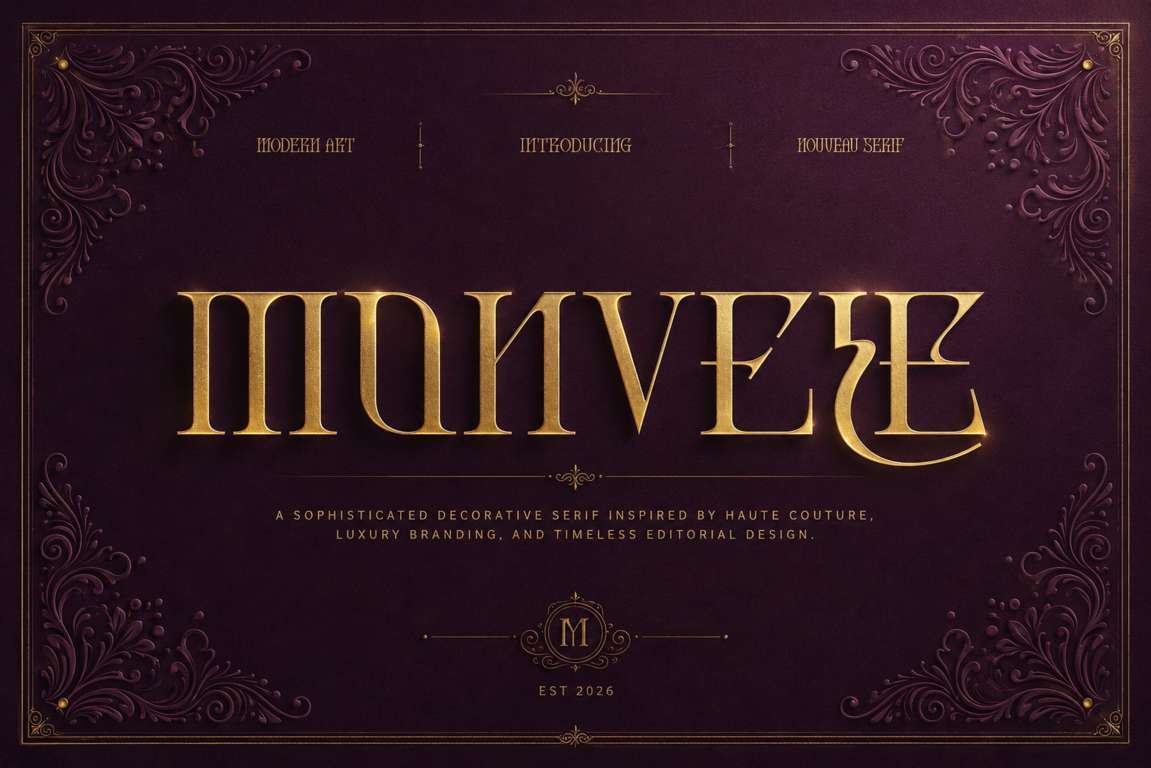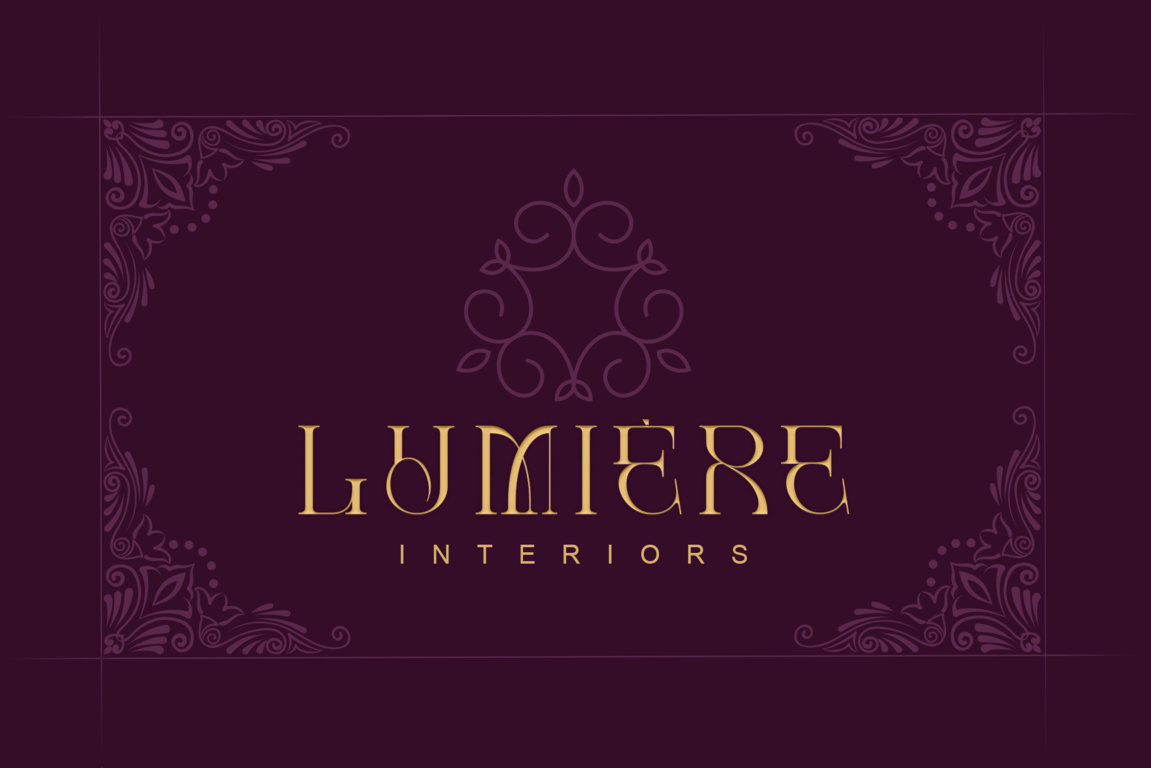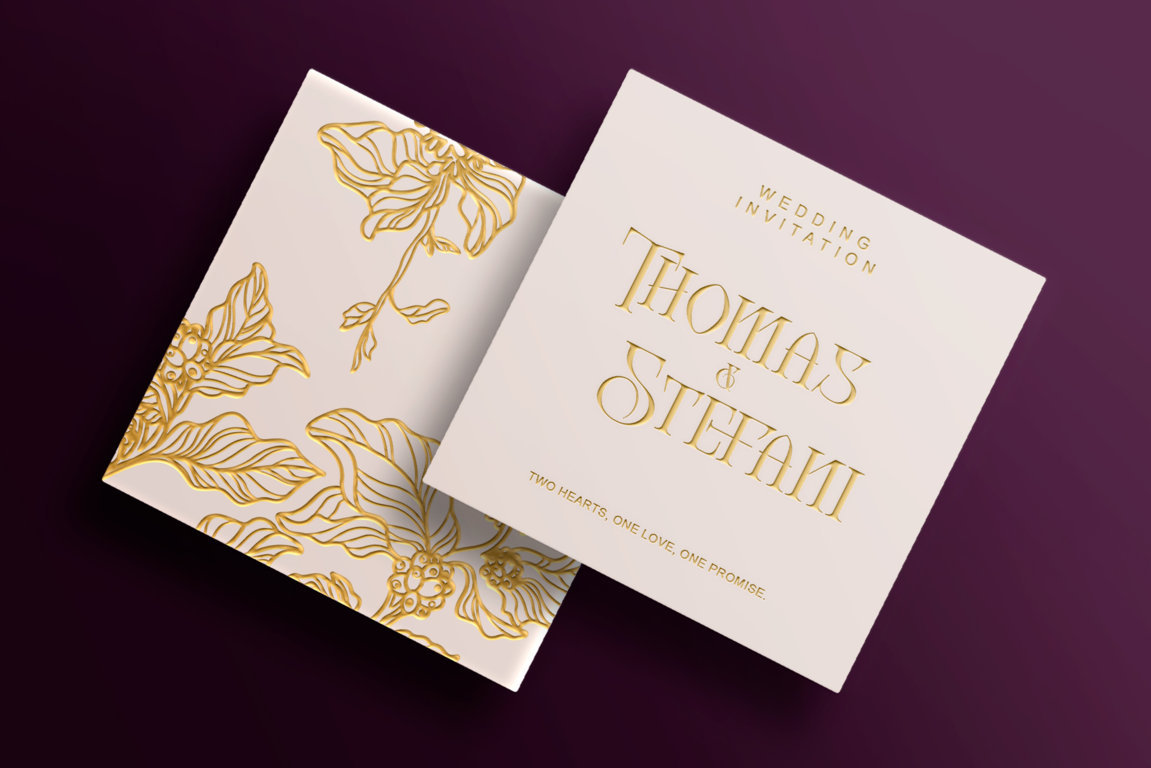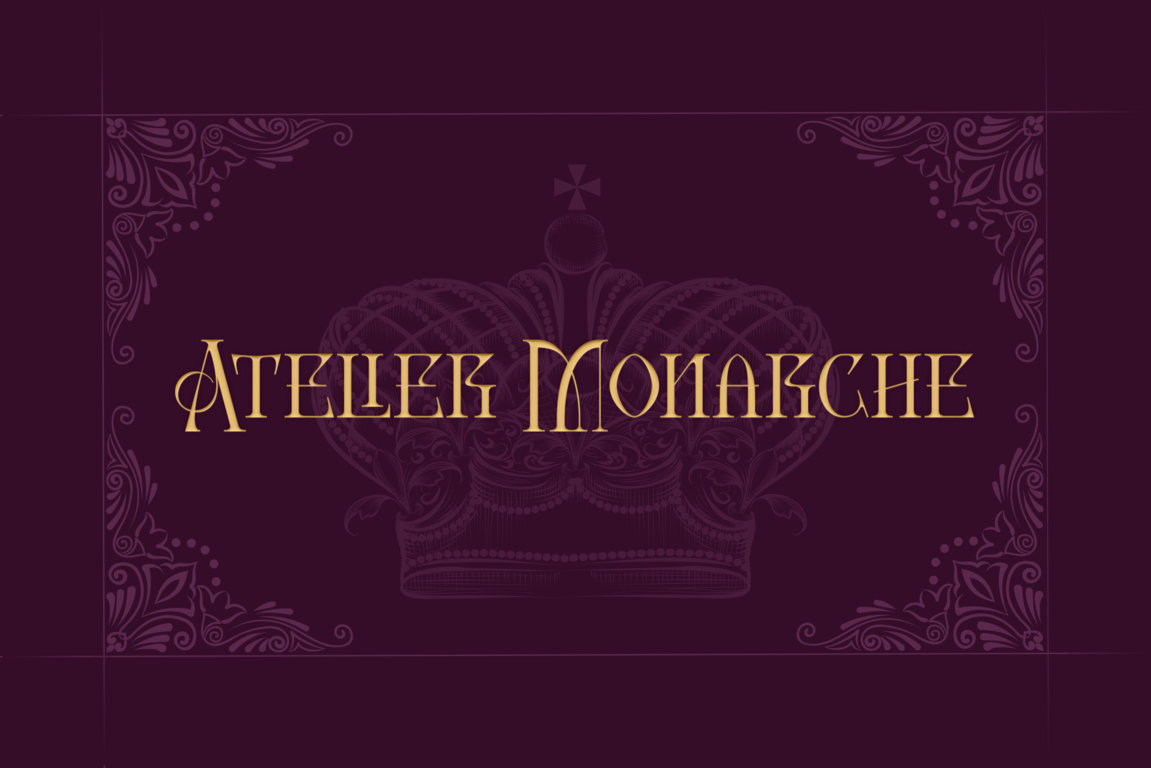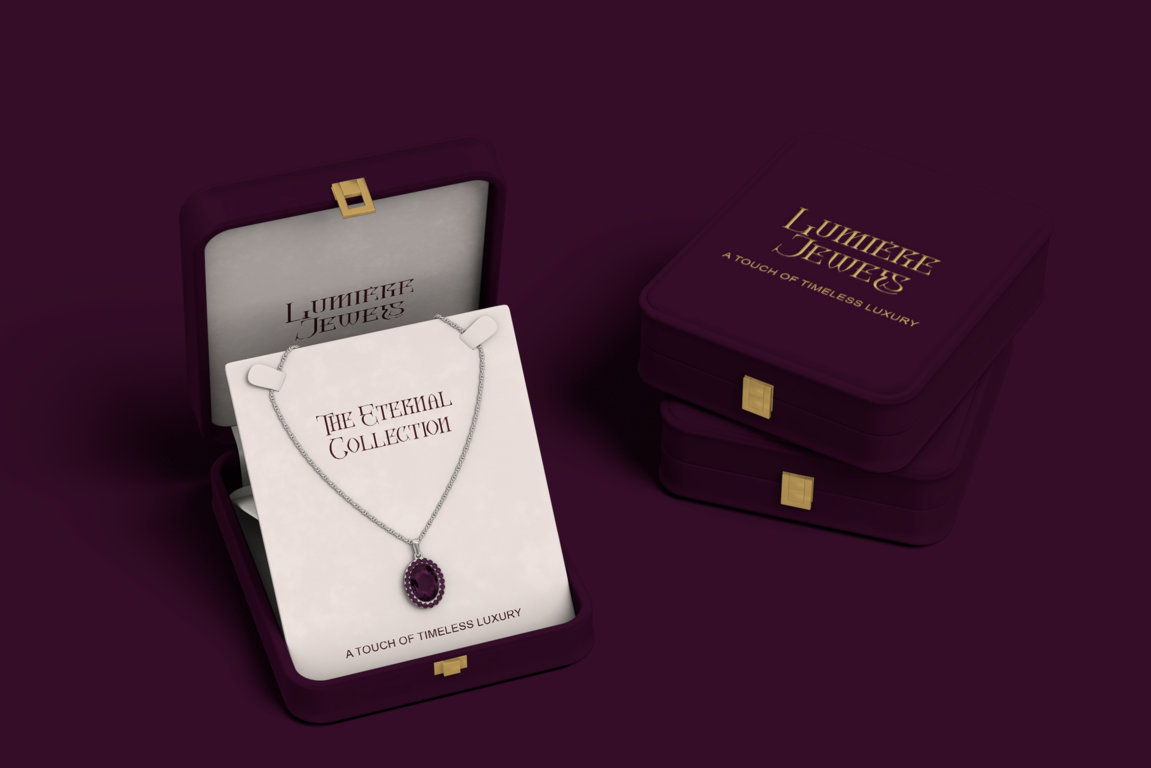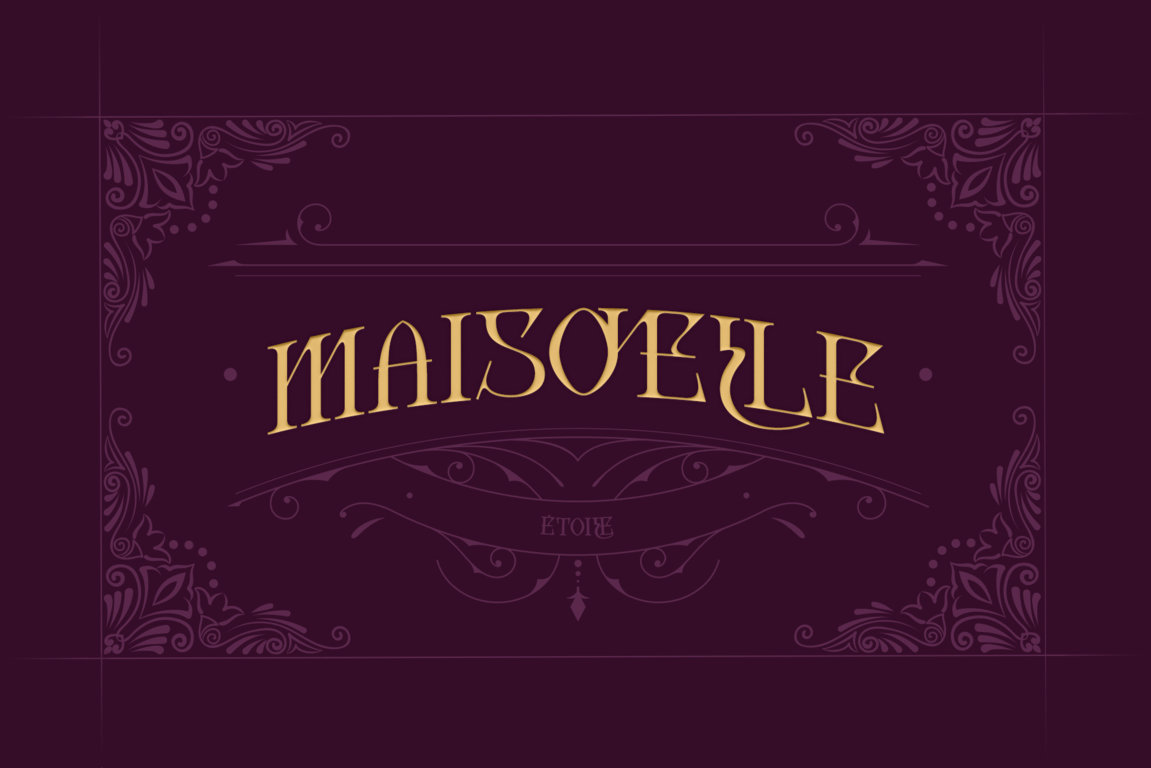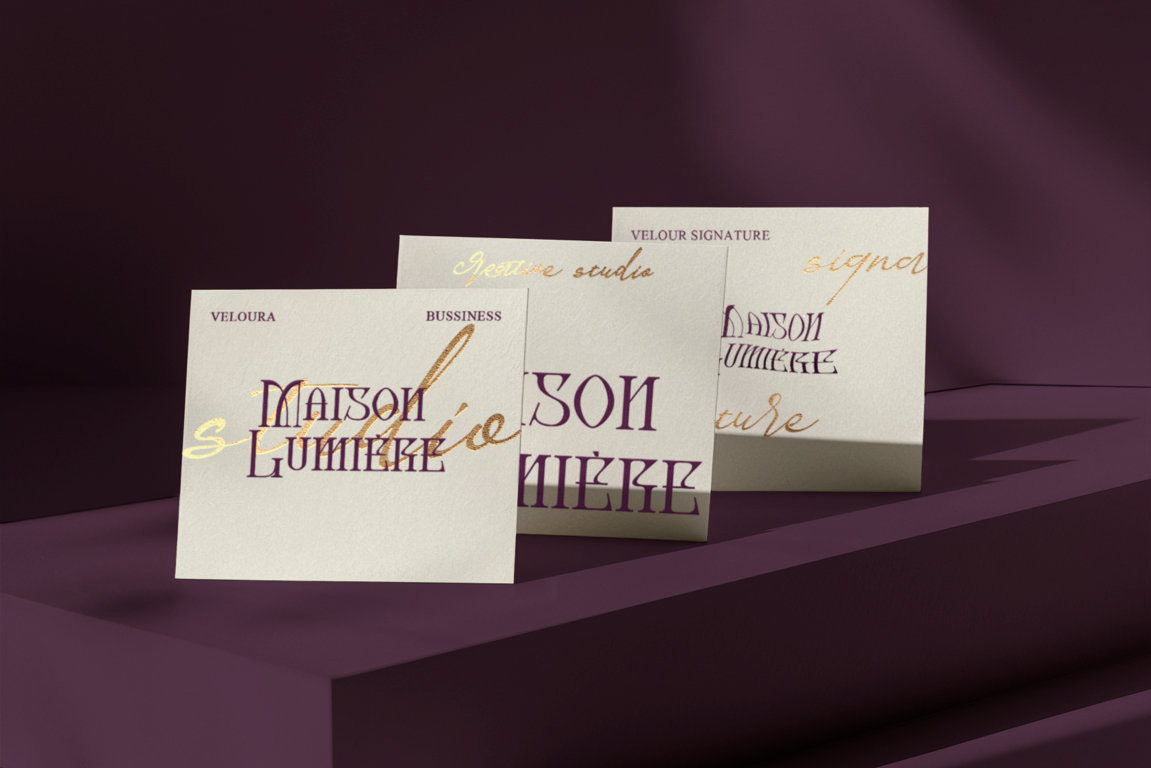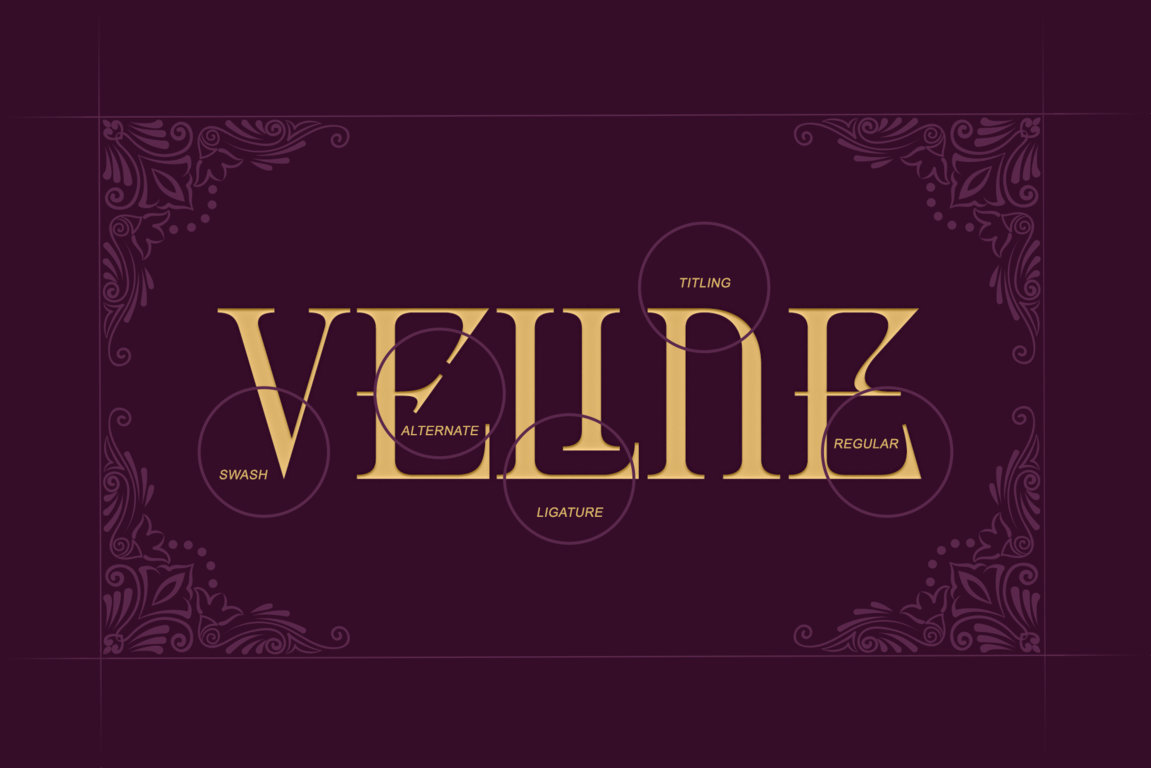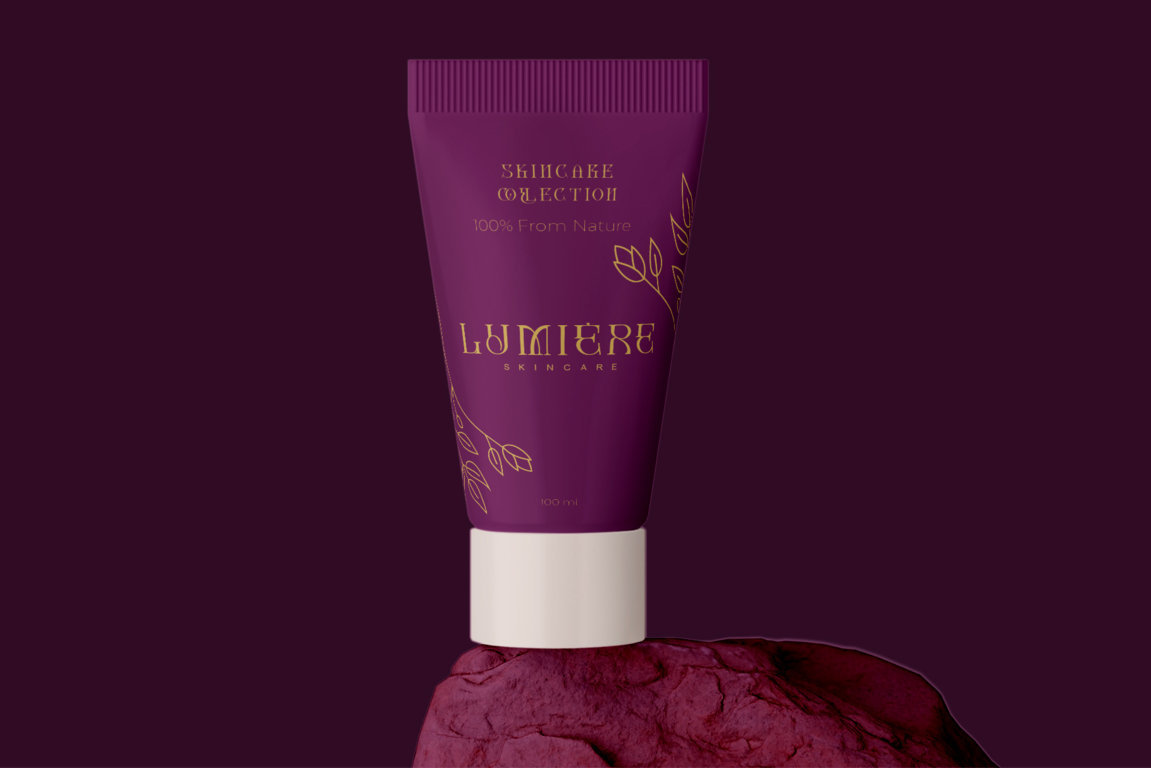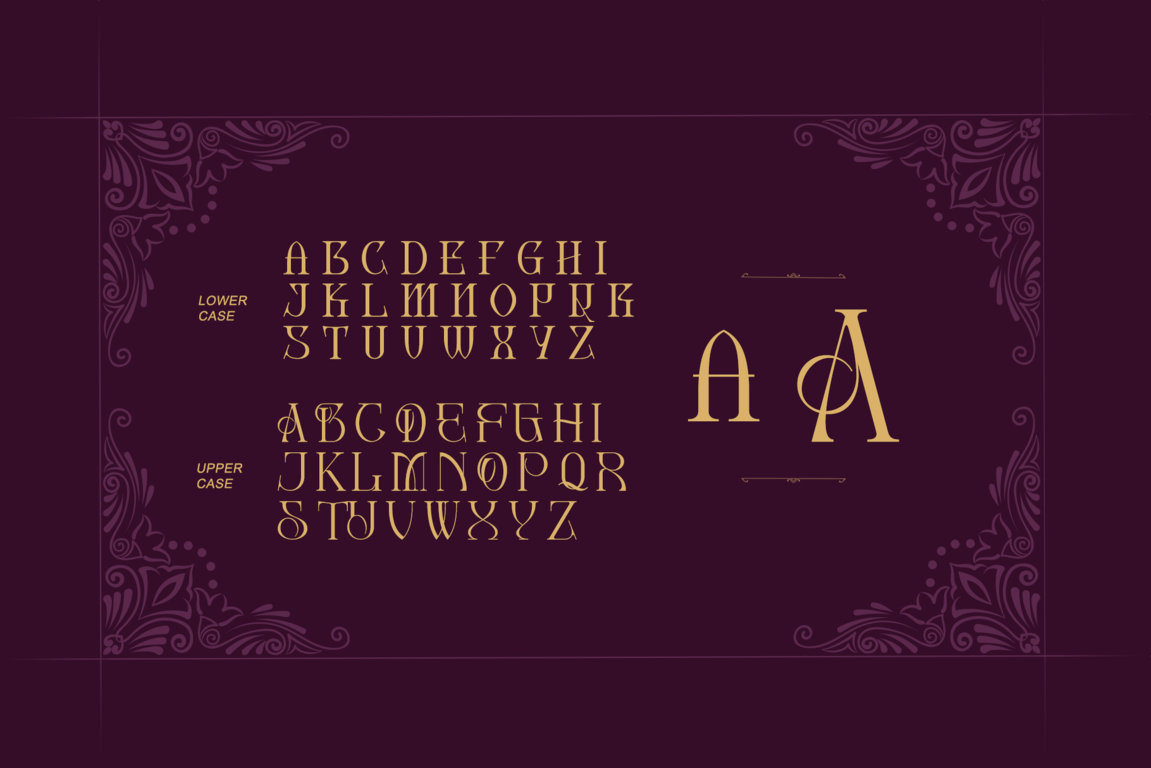
Monvele is an elegant decorative serif font created for sophisticated branding, luxury packaging, editorial design, and timeless visual identities. Inspired by Art Nouveau, haute couture, and classic typography, Monvele combines graceful curves, refined proportions, and distinctive ornamental details to create a luxurious and memorable appearance.
Its artistic letterforms bring elegance and personality to every composition without sacrificing readability. Monvele is especially suitable for premium logos, fashion branding, beauty and skincare packaging, perfume labels, magazine headlines, wedding invitations, boutique identities, restaurant branding, product packaging, and high-end social media designs.
Monvele includes uppercase and lowercase letters, stylish alternates, decorative swashes, titling characters, creative ligatures, numerals, punctuation, symbols, accented characters, and multilingual support. These OpenType features give designers the freedom to create distinctive wordmarks, elegant monograms, custom headlines, and sophisticated logo compositions.
Whether you are developing a luxury skincare brand, designing an editorial cover, creating elegant wedding stationery, or building a timeless fashion identity, Monvele adds an exclusive and refined character to your work.
Perfect for:
Luxury logo design
Fashion and beauty branding
Skincare and cosmetic packaging
Perfume and fragrance labels
Editorial and magazine headlines
Wedding invitations and stationery
Boutique and jewelry branding
Premium product packaging
Restaurant and hospitality branding
Elegant social media templates
Book covers and promotional posters
Monograms and signature wordmarks
- Alternate, swash, titling & Ligature
Monvele supports many Latin-based languages, including English, Indonesian, Spanish, French, German, Italian, Portuguese, Dutch, Danish, Swedish, Norwegian, Finnish, Icelandic, Irish, Polish, Czech, Slovak, Romanian, Hungarian, Croatian, Slovenian, Turkish, Estonian, Latvian, Lithuanian, and other languages supported by the included accented characters.
Bring elegance, artistry, and timeless luxury to your next creative project with Monvele.
Monvele — designed for refined brands, beautiful stories, and identities made to endure.